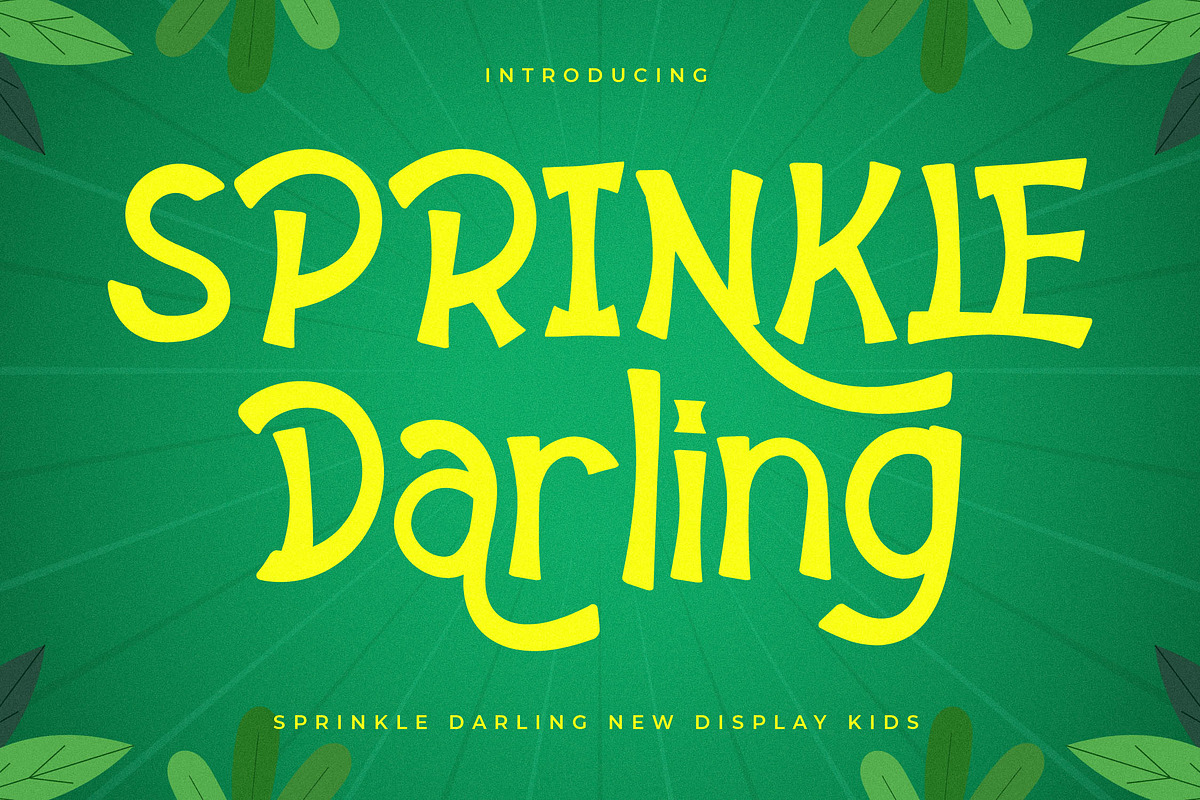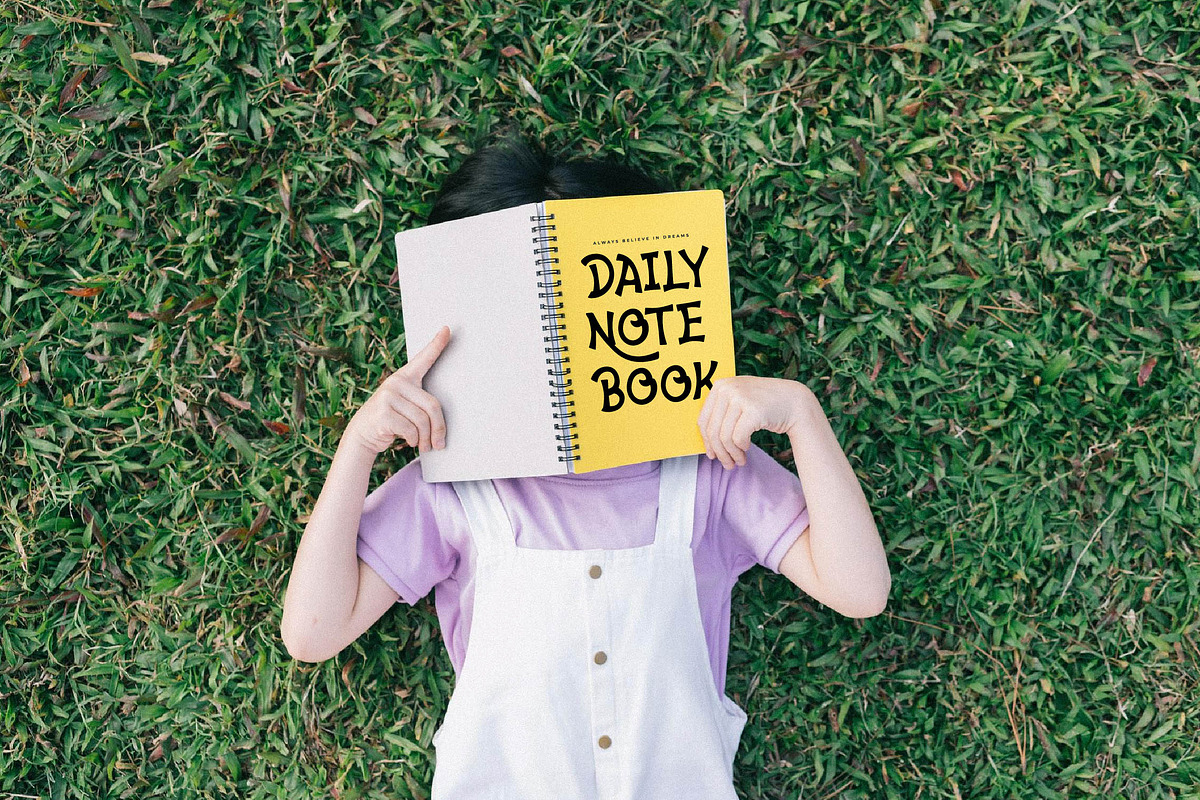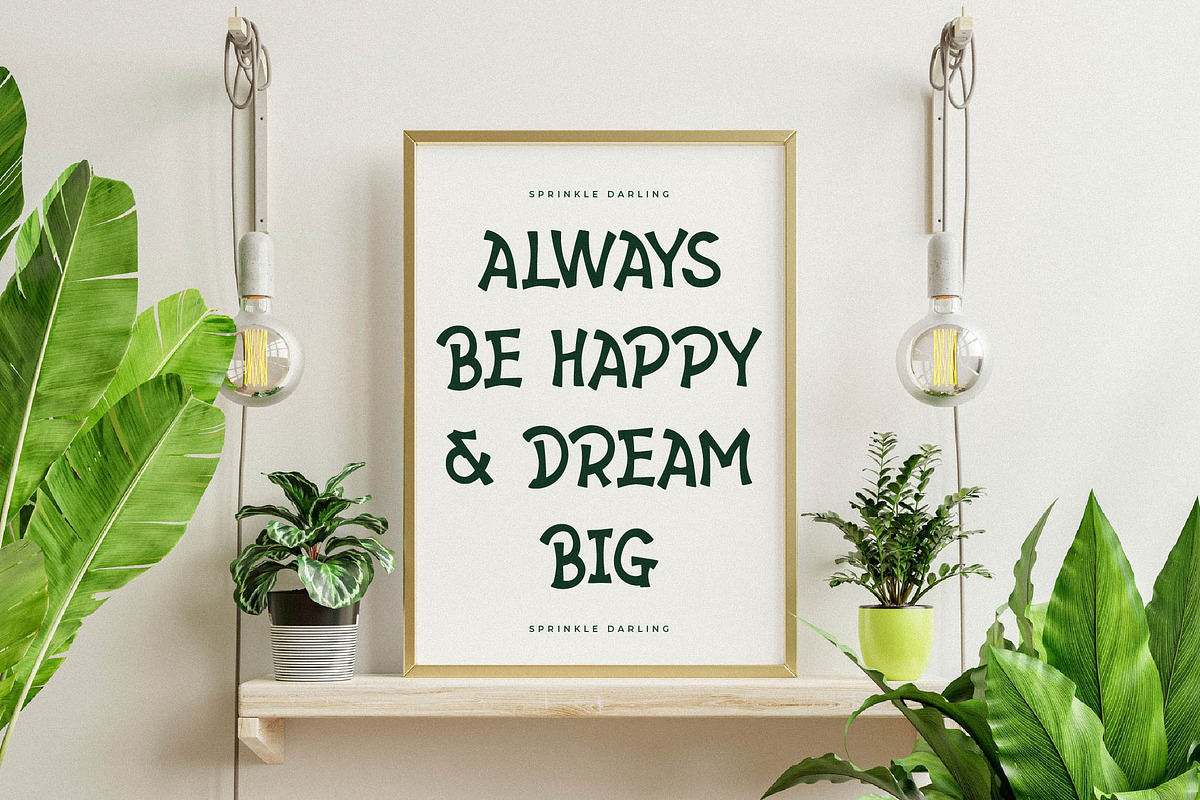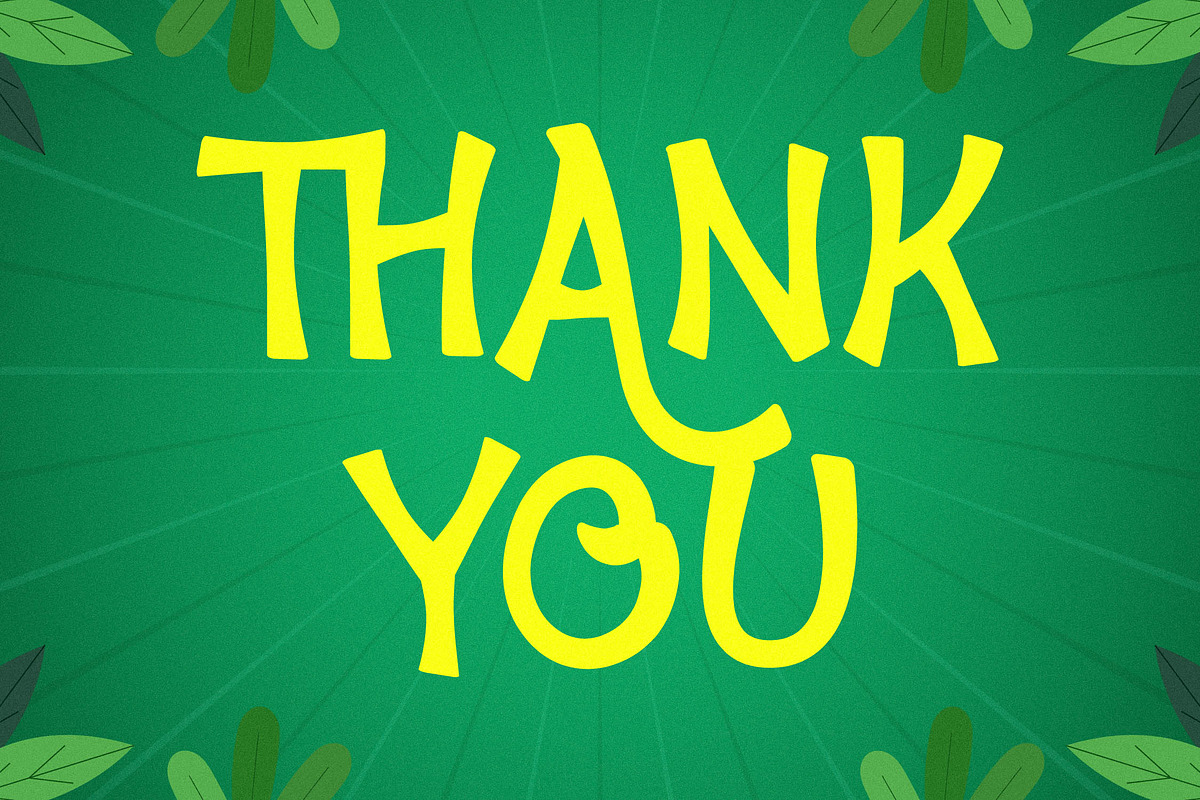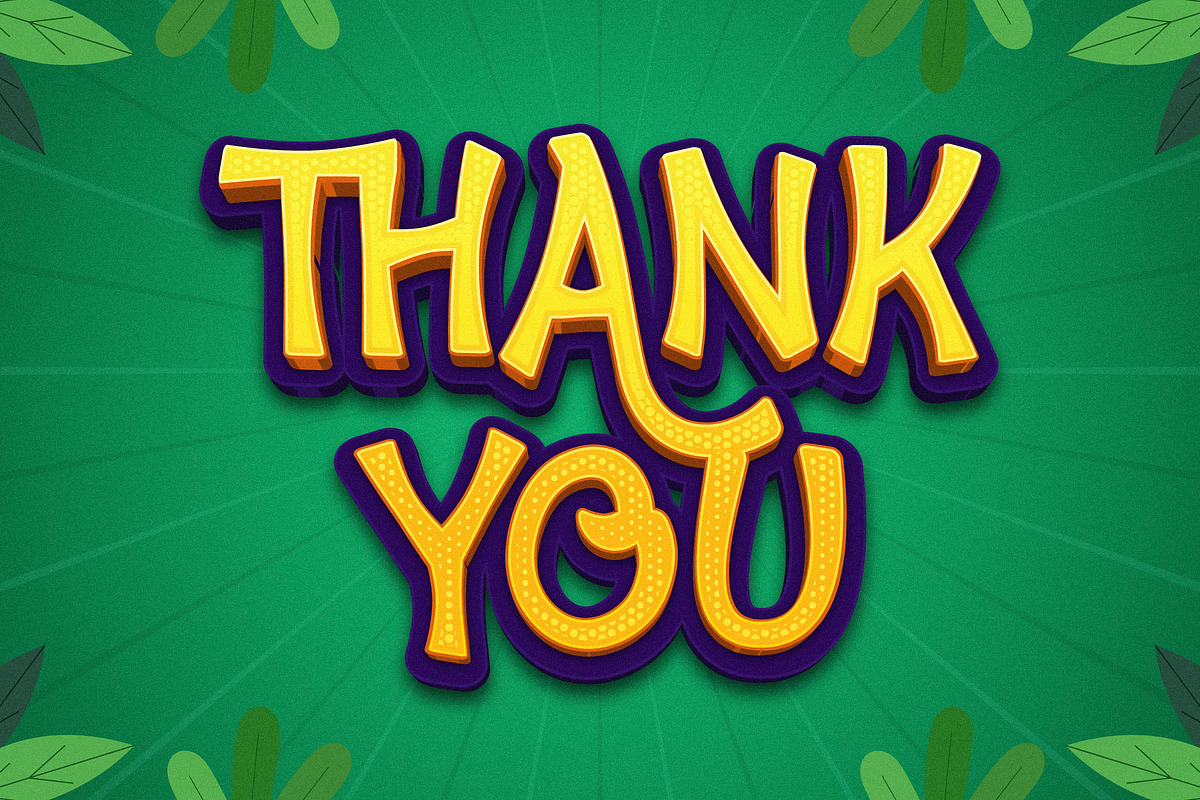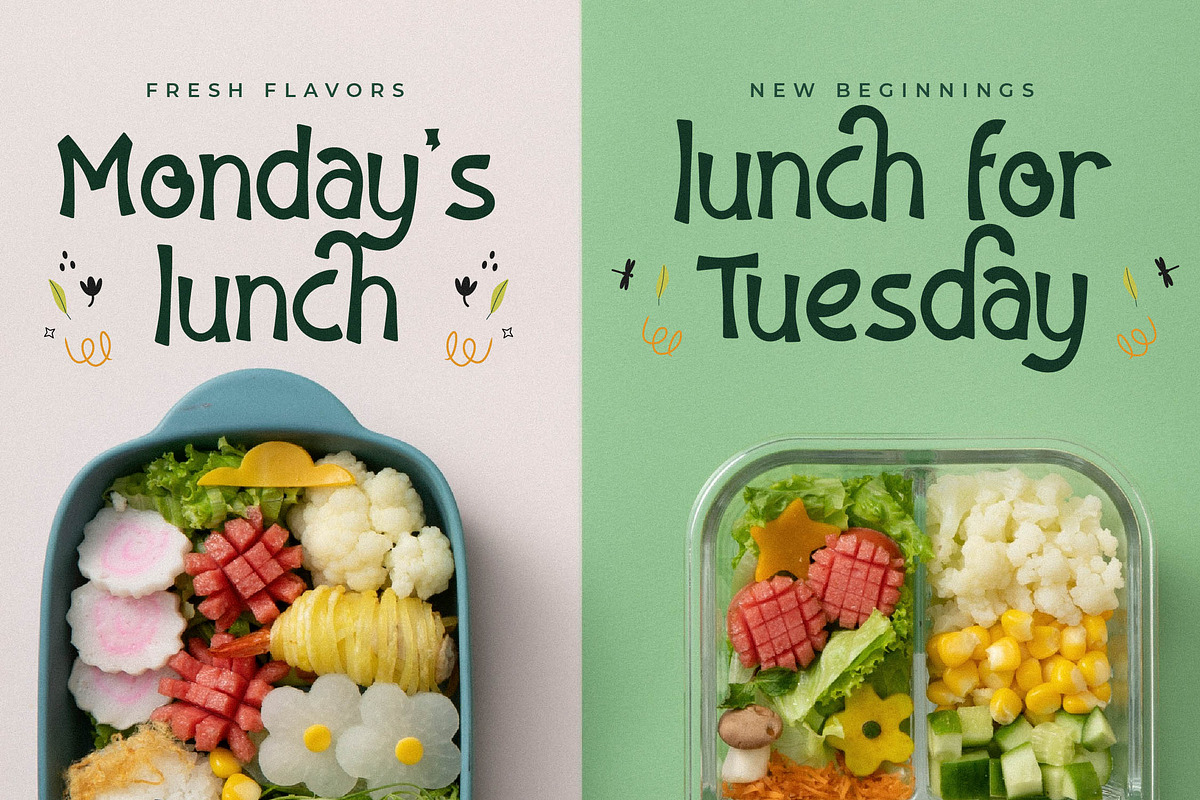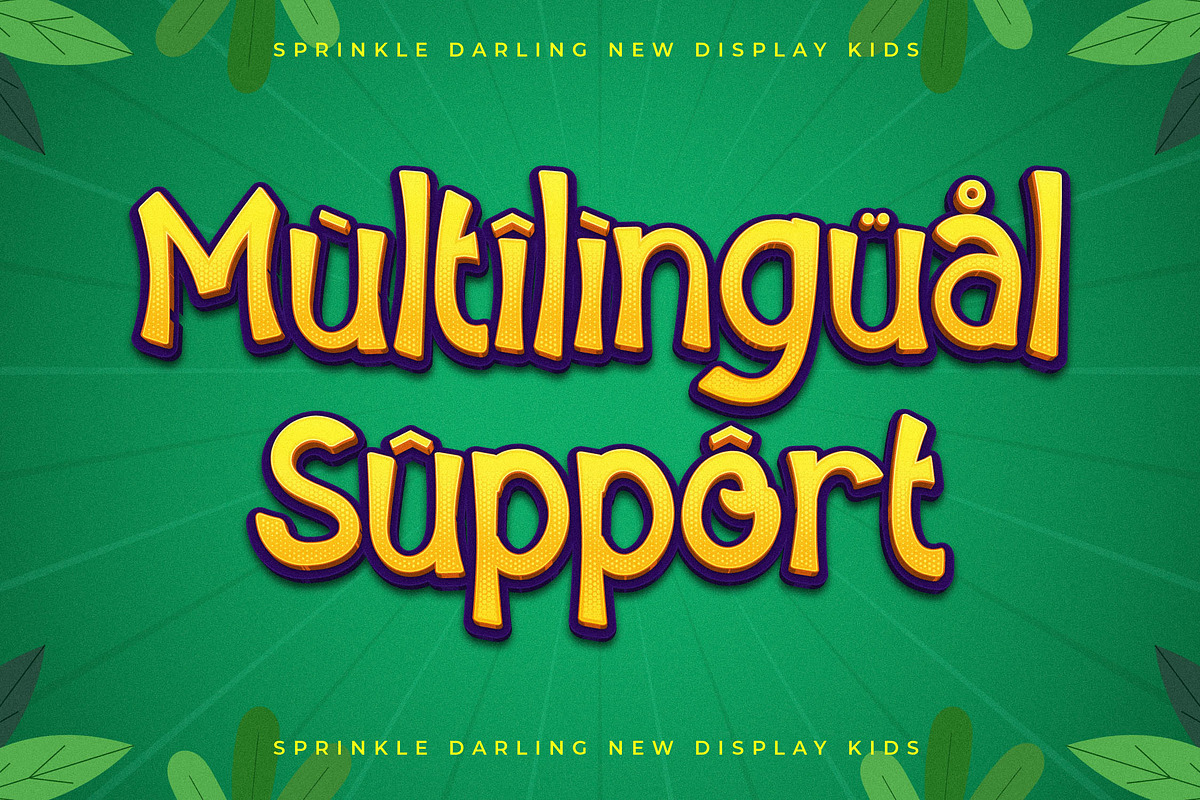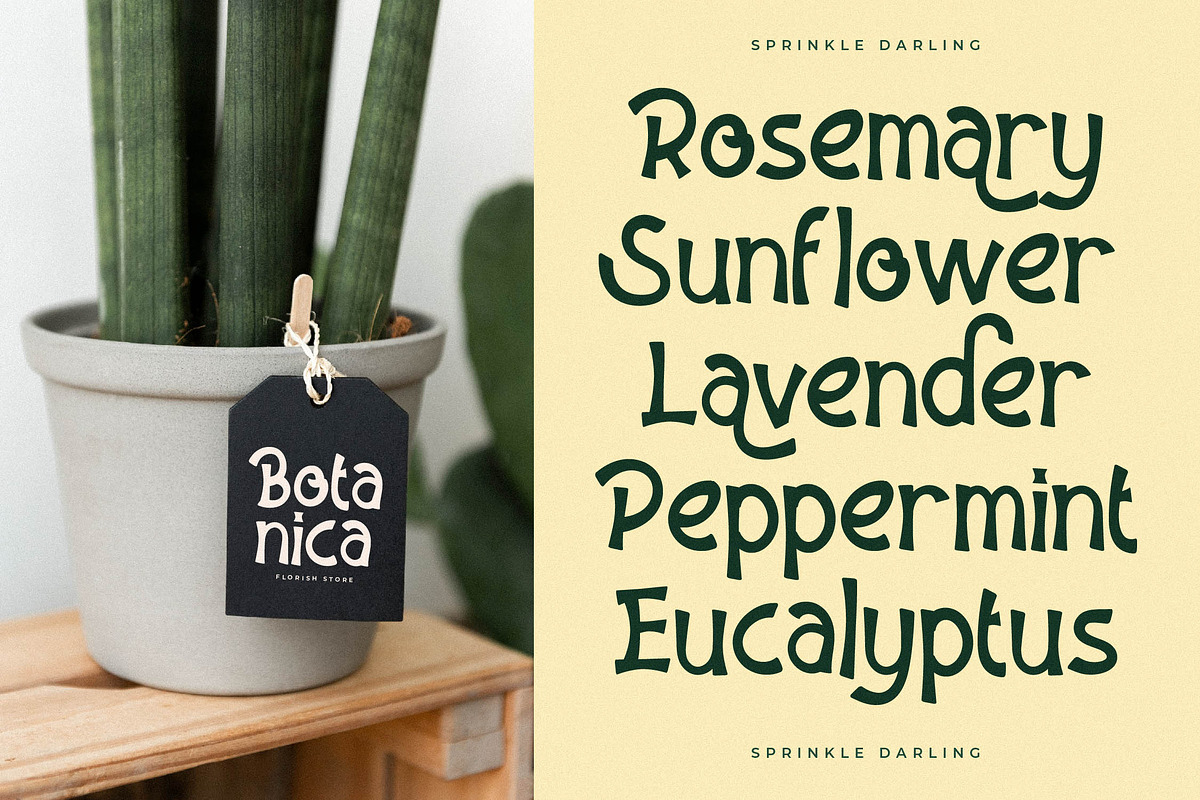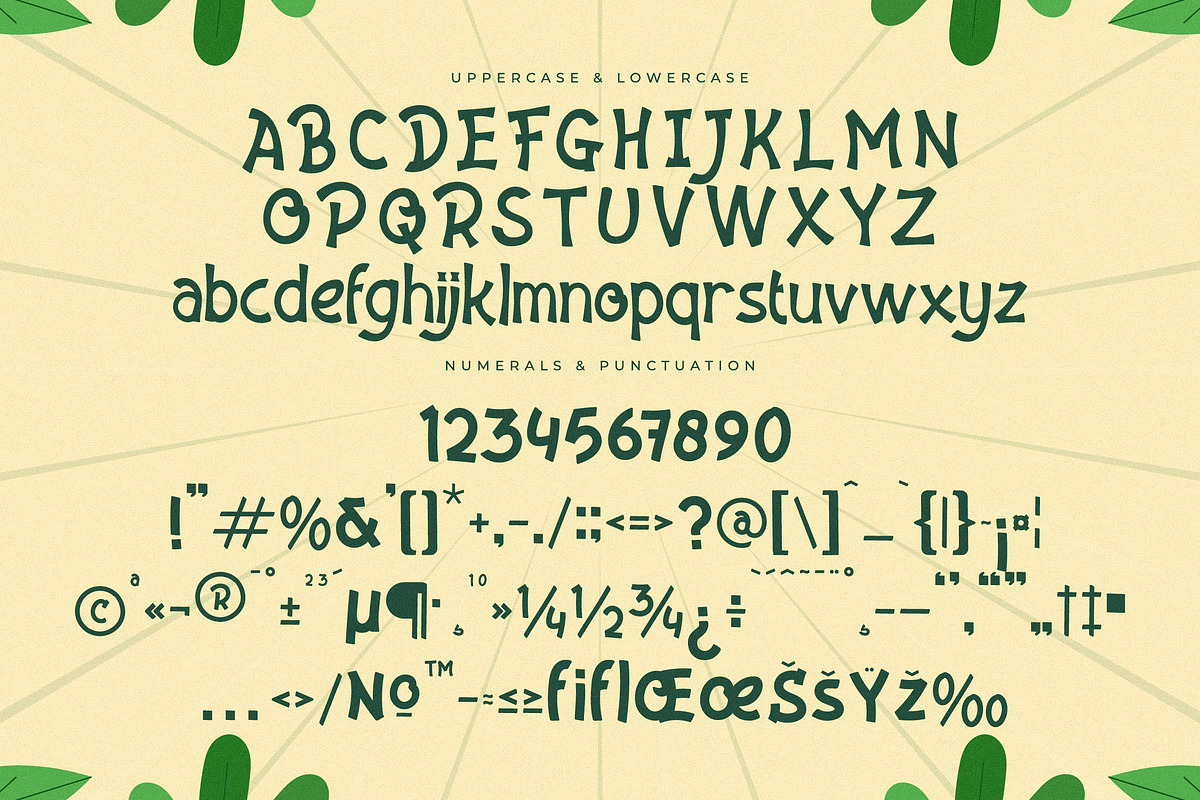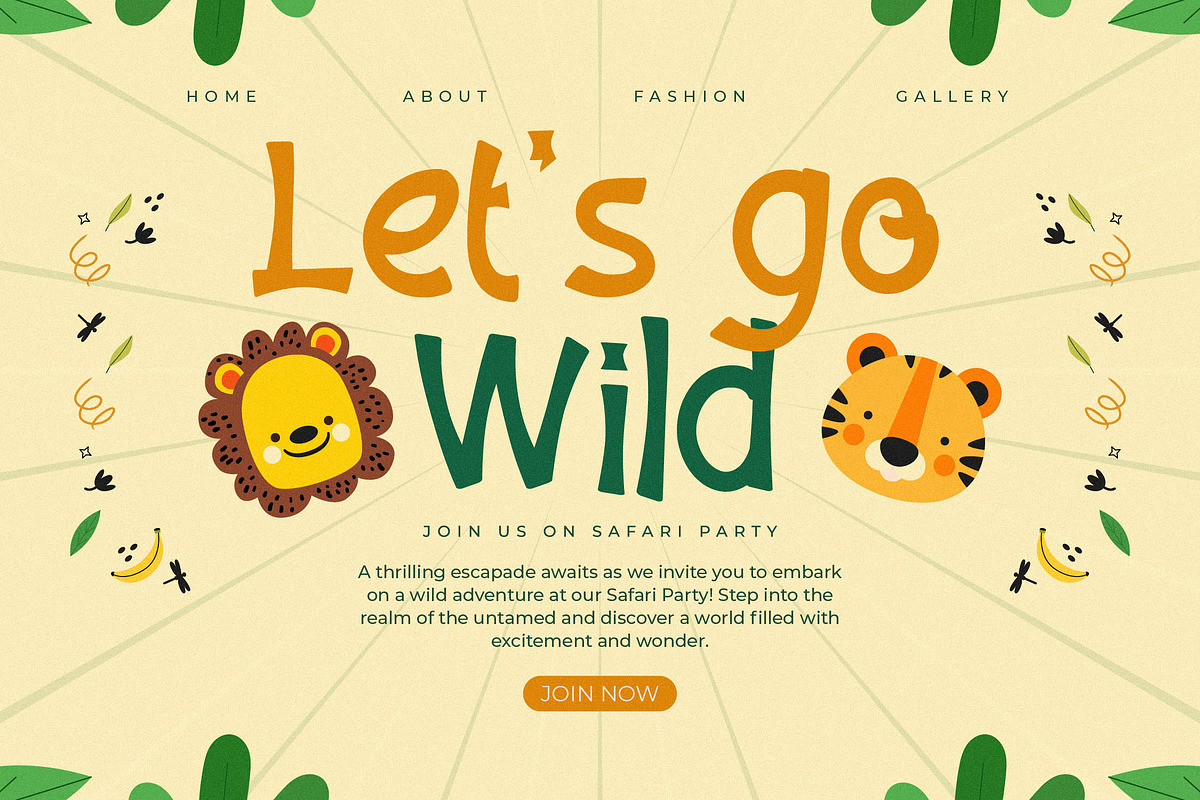
Sprinkle Darling New Display Kids
Proudly present Sprinkle Darling Typeface , created by Storytype, A serif modern and classic typeface that has own unique style & modern look. This typeface is perfect for an elegant & luxury logo, book or movie title design, fashion brand, magazine, clothes, lettering, quotes, and so much more.